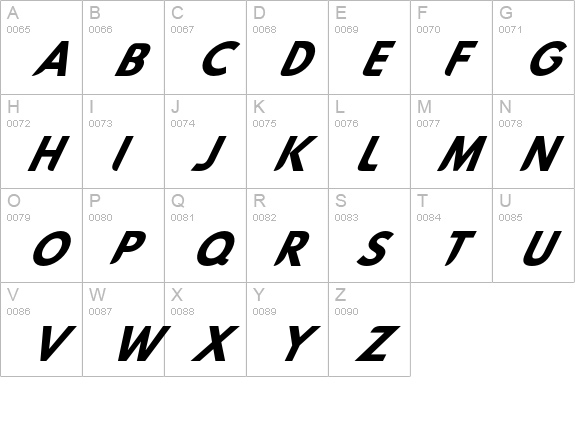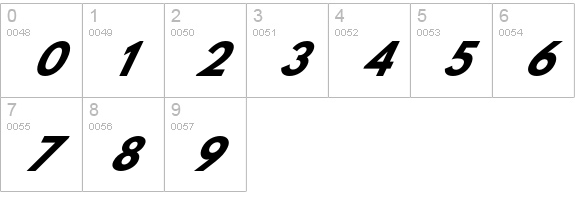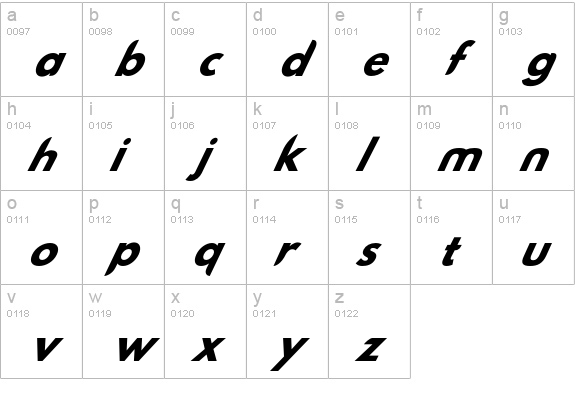
Introducing Poland Can Into Car Fixings font, a versatile and stylish typeface that effortlessly captures the essence of automotive expertise. This font is the perfect choice for any car-related project, whether it be a logo design, website, or promotional material. Poland Can Into Car Fixings font features a unique blend of boldness and elegance, making it stand out from the crowd. Its carefully crafted letterforms exude confidence and professionalism, while still maintaining a touch of playfulness. One of the standout features of Poland Can Into Car Fixings font is its versatility. It can be used for both headlines and body text, ensuring consistency and cohesiveness throughout your design. Whether you're creating a sleek and modern automotive magazine or a vintage-inspired car repair shop logo, this font has got you covered. The best part? Poland Can Into Car Fixings font is available for free download at FontsMarket.com. Yes, you read that right - you can get your hands on this incredible font without spending a dime. Simply head over to FontsMarket.com and start using this font to elevate your car-related projects to new heights. With its impeccable design and freely available nature, Poland Can Into Car Fixings font is a must-have for any designer, car enthusiast, or automotive business owner. Don't miss out on the opportunity to add this stunning typeface to your font collection. Download it now and let your designs roar with style and professionalism.